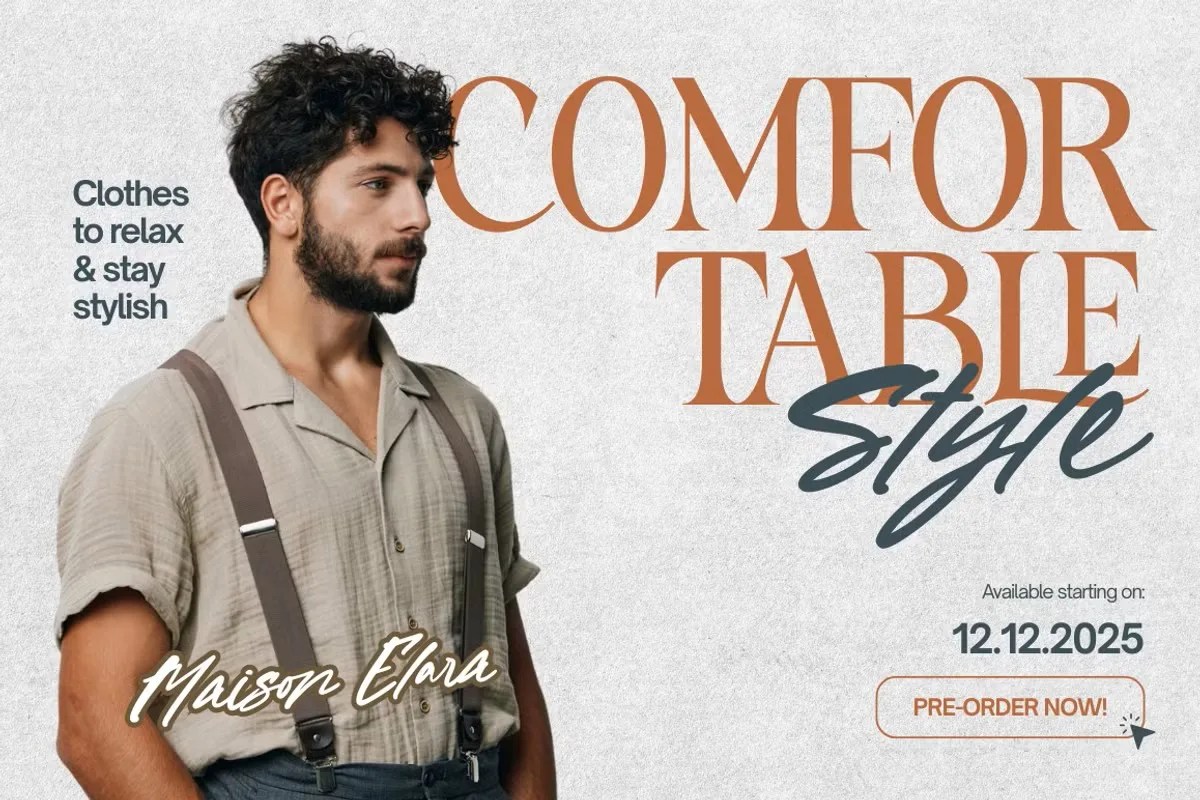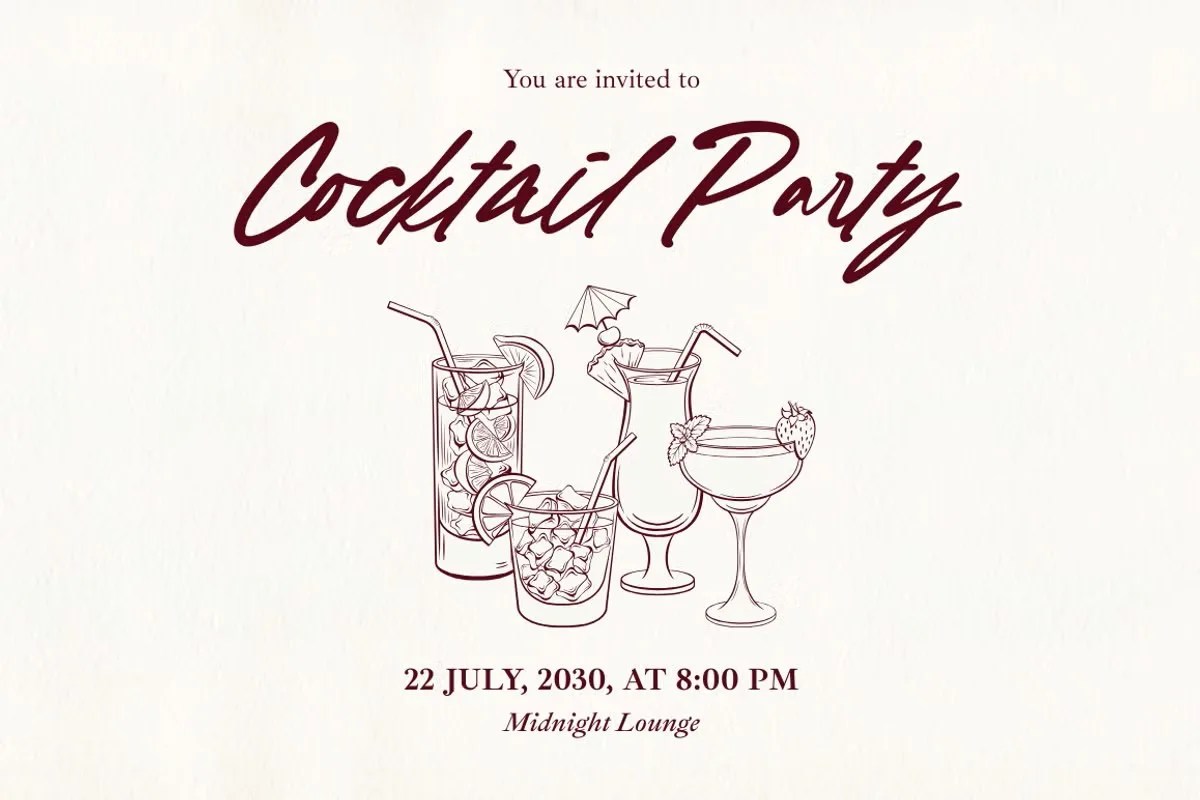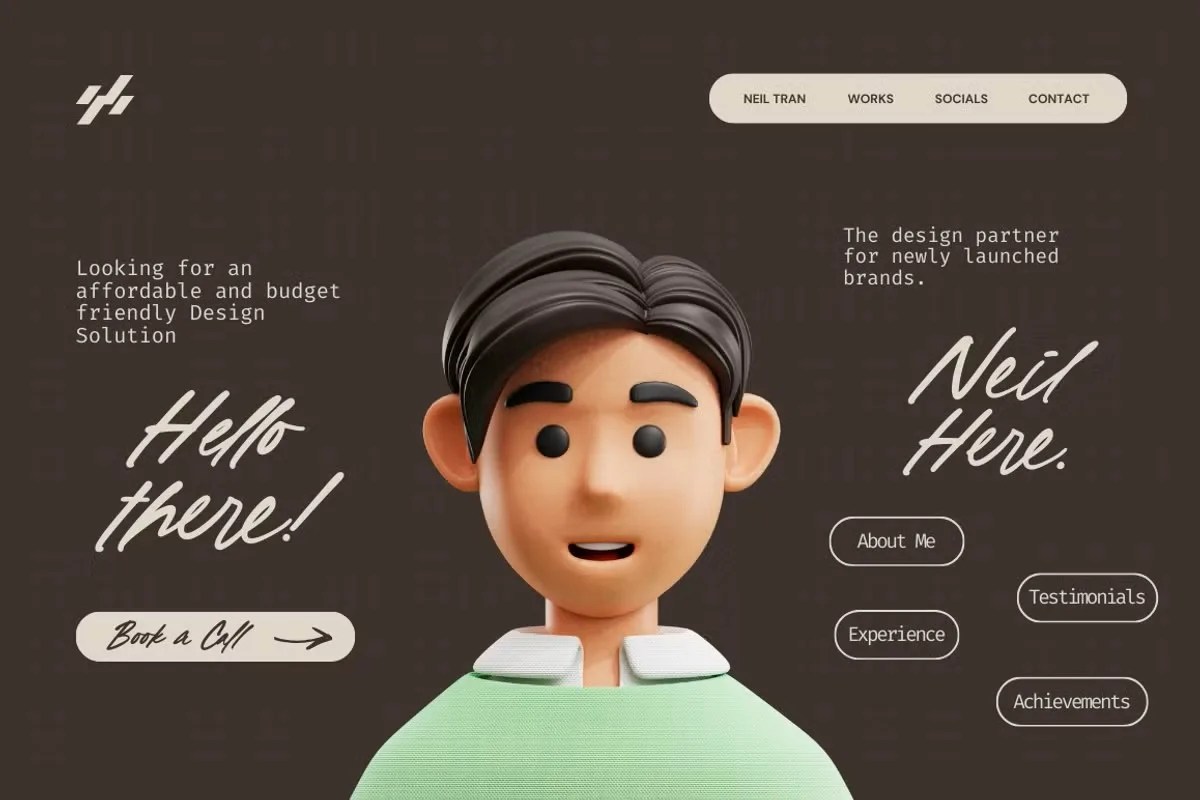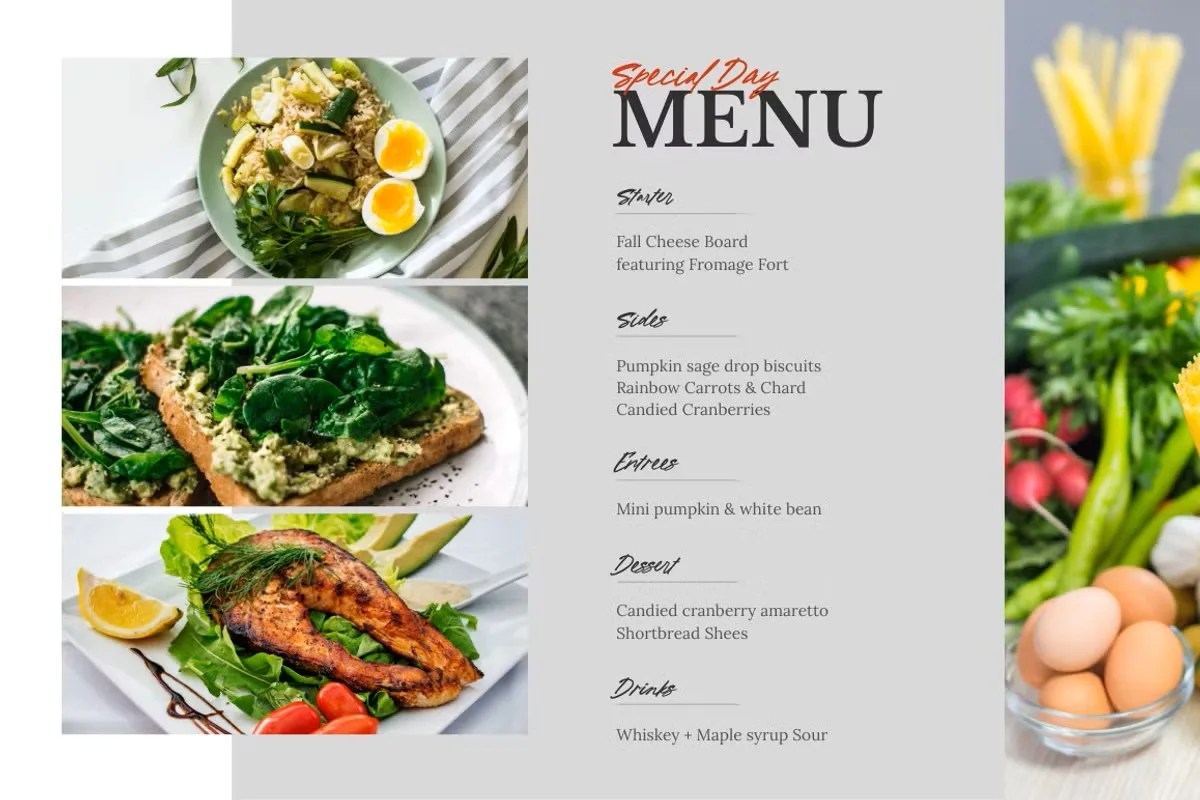
Loving in Dream by Sronstudio. This is an absolutely beautiful and romantic script font. It flows with the grace and elegance of delicate handwriting. The font adds a touch of personal warmth to every word you type, making your text feel intimate and special. Loving in Dream is perfect for creative projects that need to whisper, not shout, conveying their message with softness and sincerity.
This font is a perfect match for any design that speaks from the heart. Specifically, it is the ultimate choice for wedding stationery suites, from invitations to place cards. It immediately sets a tone of love and elegance for the special day. Furthermore, this romantic script font is wonderful for creating logos for photographers, event planners, or boutique brands. Its personal touch helps build a memorable and intimate brand identity. Use it for social media graphics or product packaging to add a touch of delicate, heartfelt beauty.
• Elegant and beauty script style
• Features smooth, flowing letter connections
• Ideal for wedding invitations, logos, and quotes
• Adds a delicate and heartfelt touch